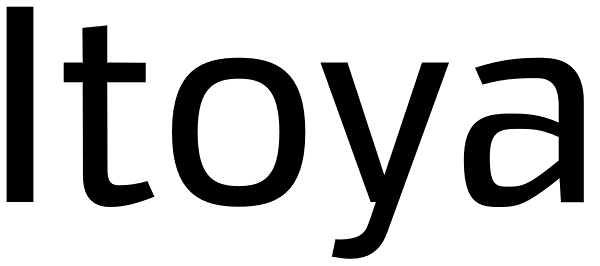
Itoya
Itoya is a contemporary sans serif font influenced by Western and Japanese ideologies. A fusion of modern machine-like functions with a warmer, emotional and more spiritual ethic. The marriage of a western precision and eastern expression forms a...